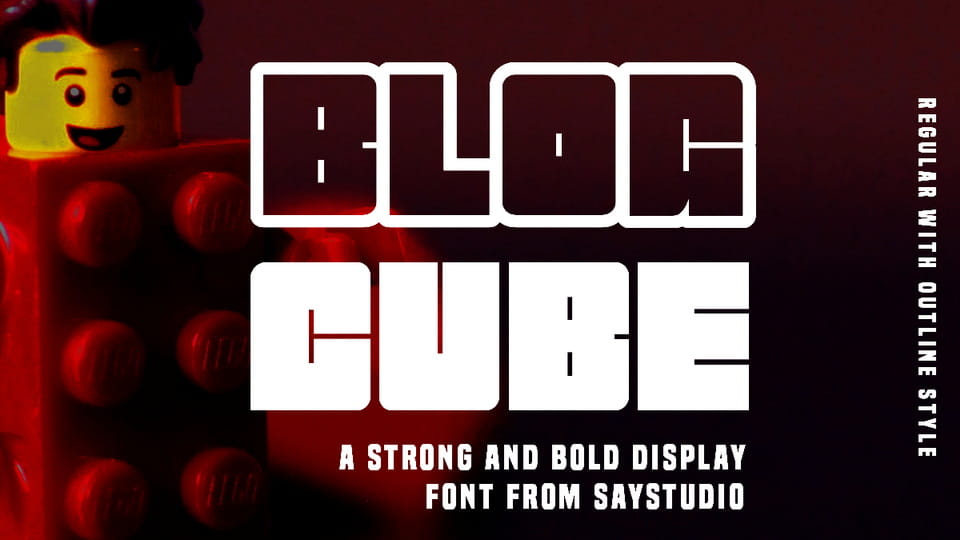
Download Blog Cube font, a bold and strong display typeface from rectangle shape that is perfect for your work such as posters, logos, branding, covers, banners, t-shirts and headers, or even large-scale artwork.
Designer: Saystudio